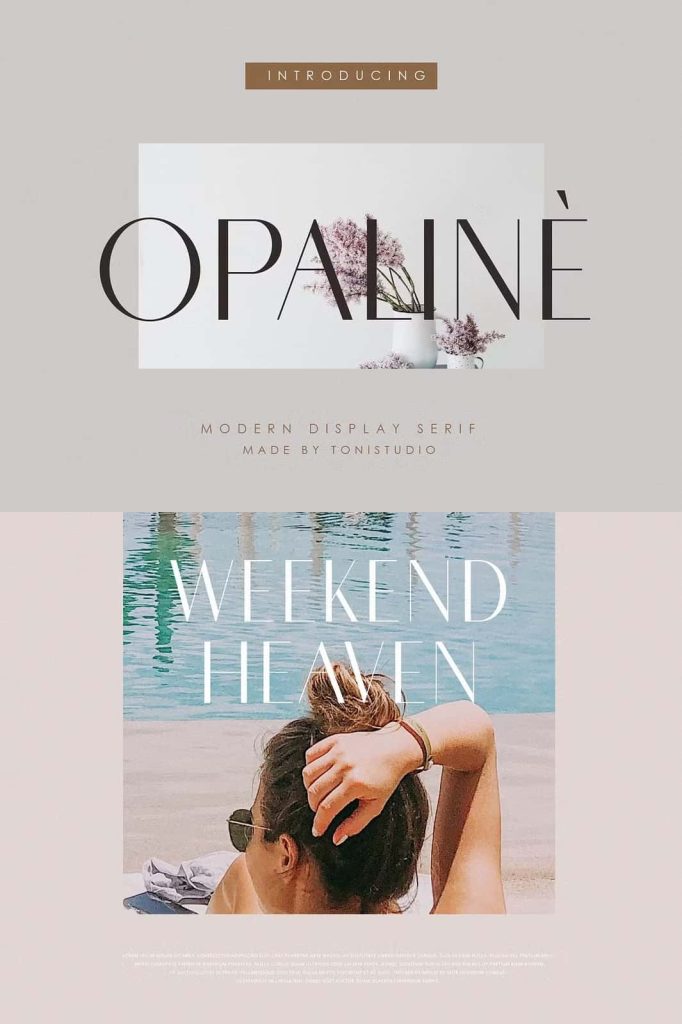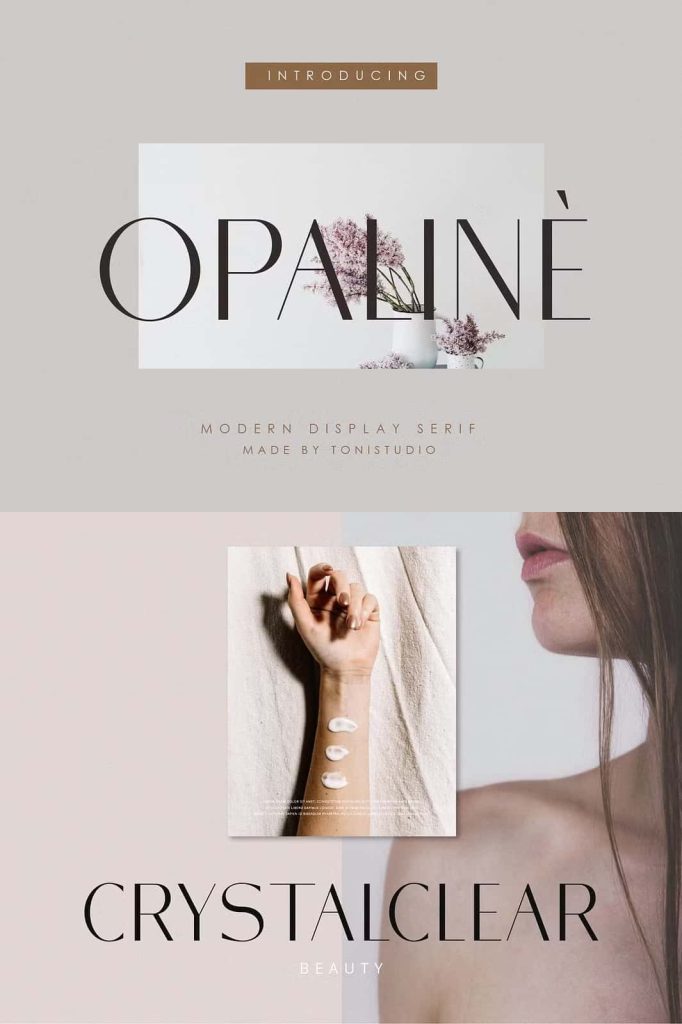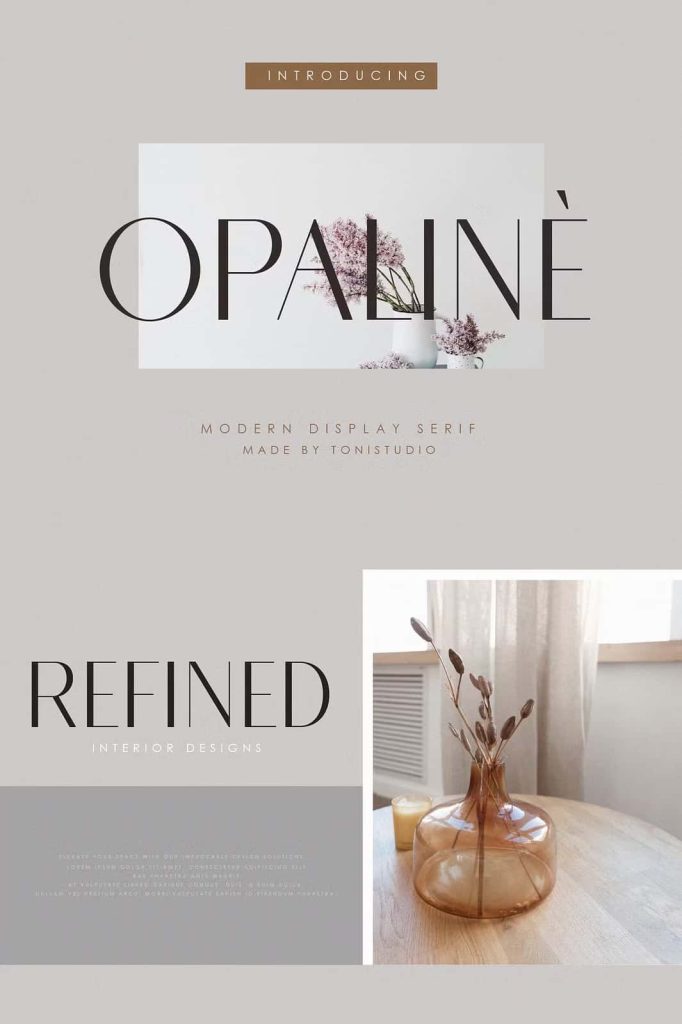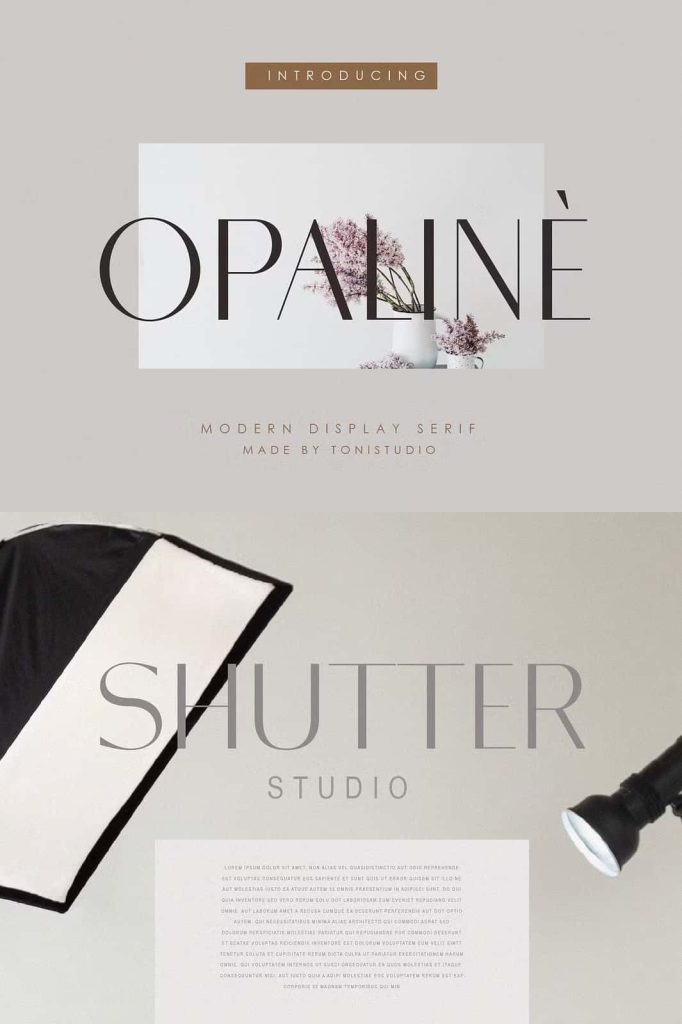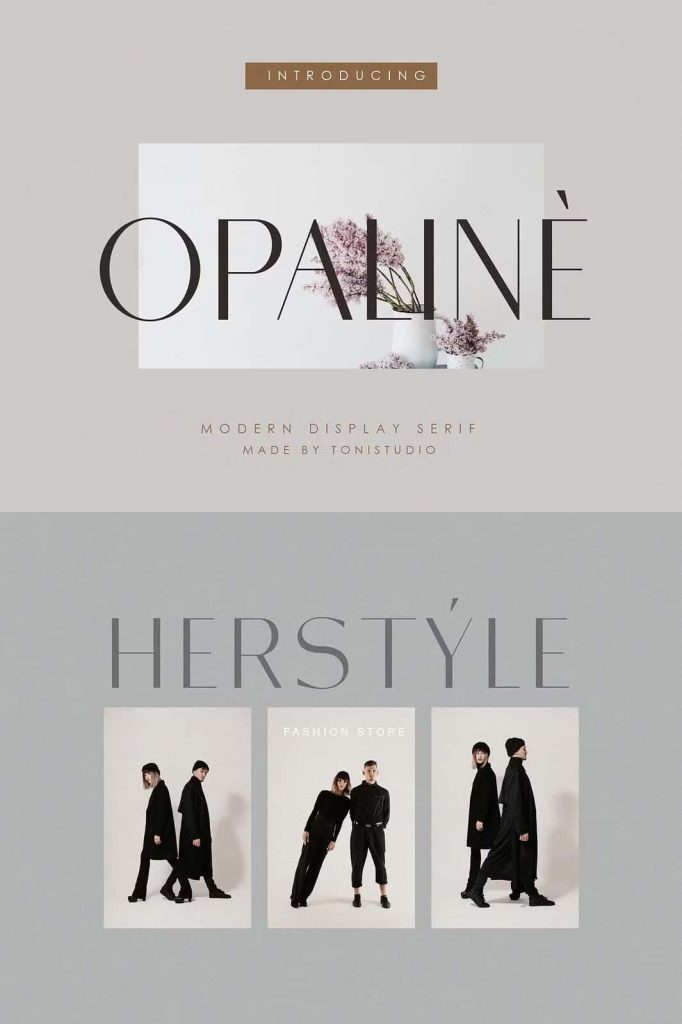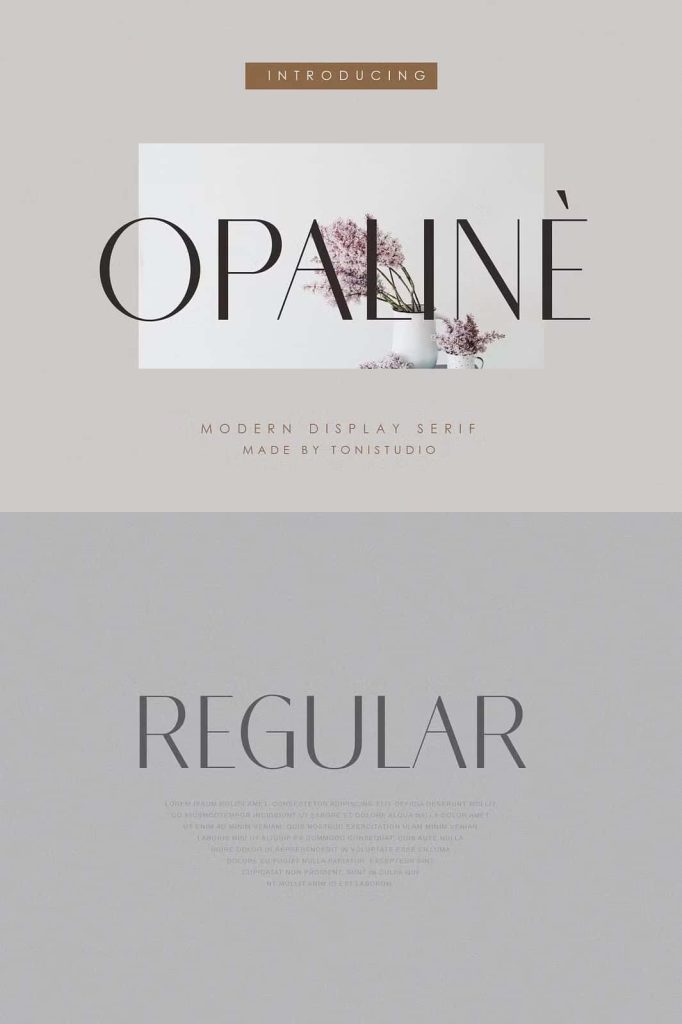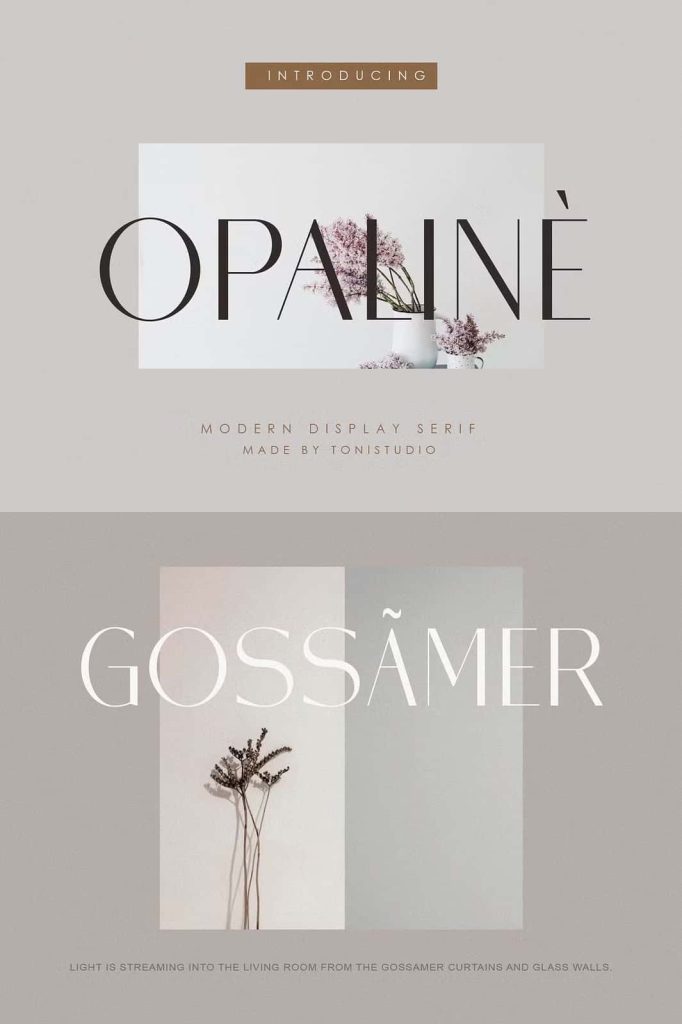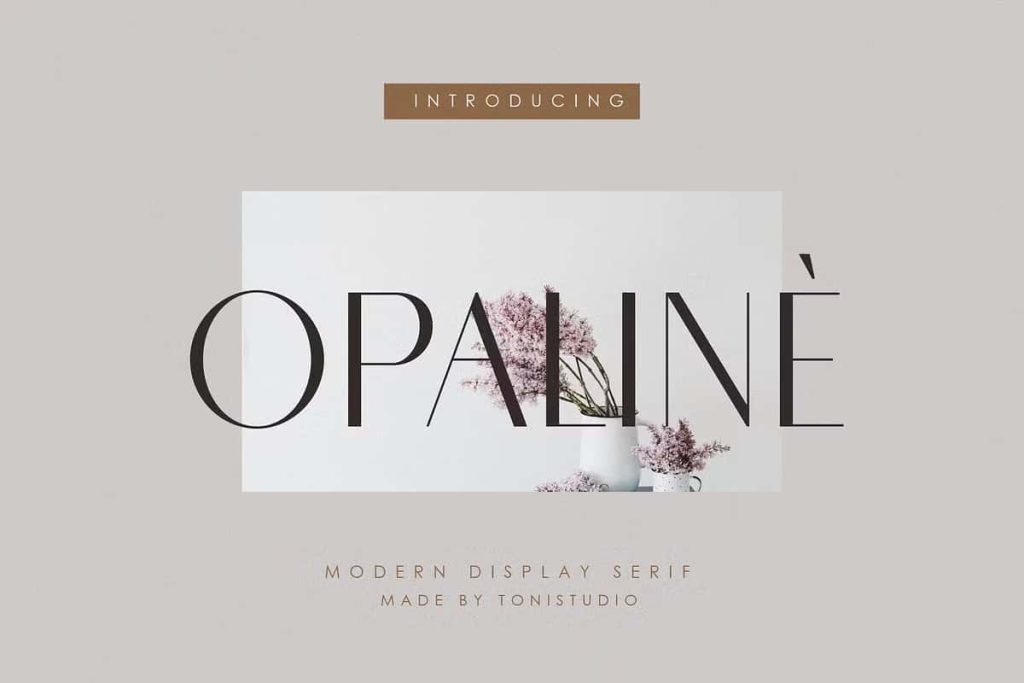
OpalineleastedJune 17, 2025Fonts Introducing Opaline, a classy, modern sans serif typeface that is comfortable in fashion and high culture circles. Download